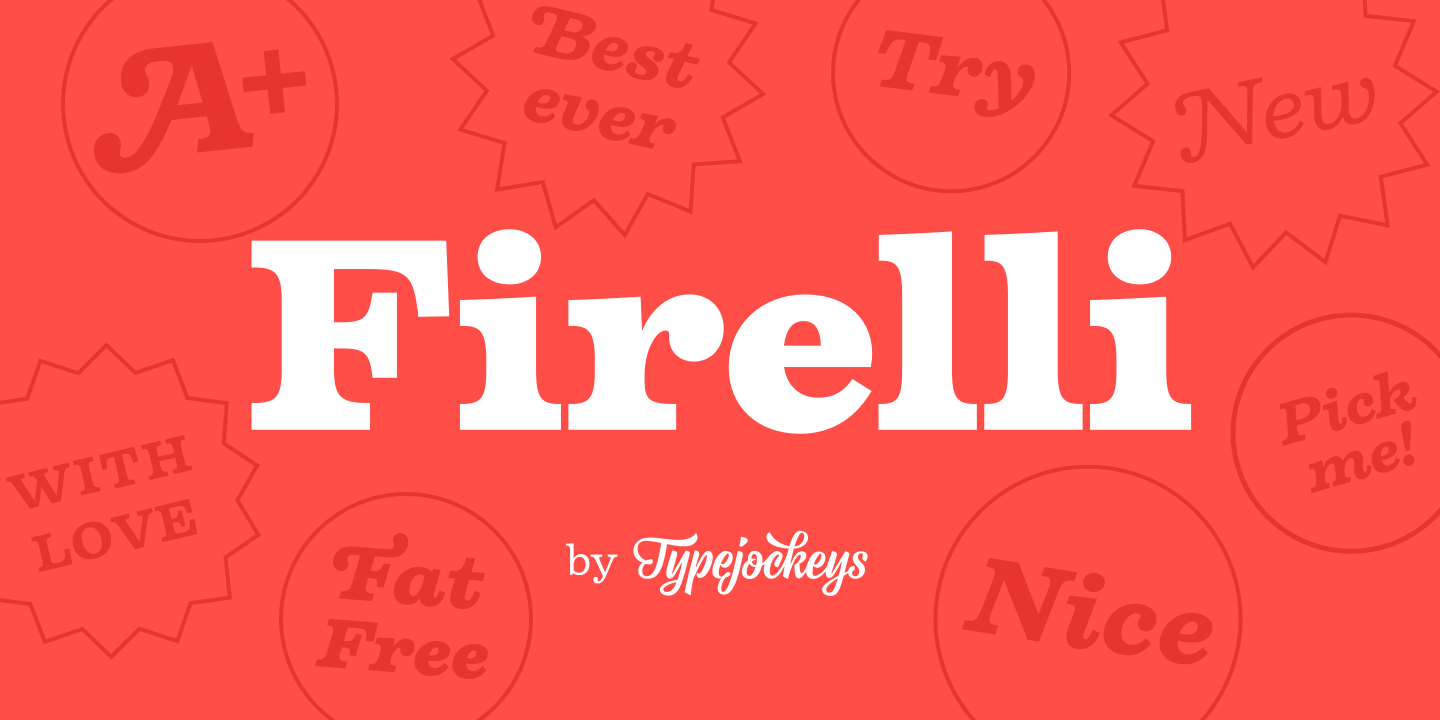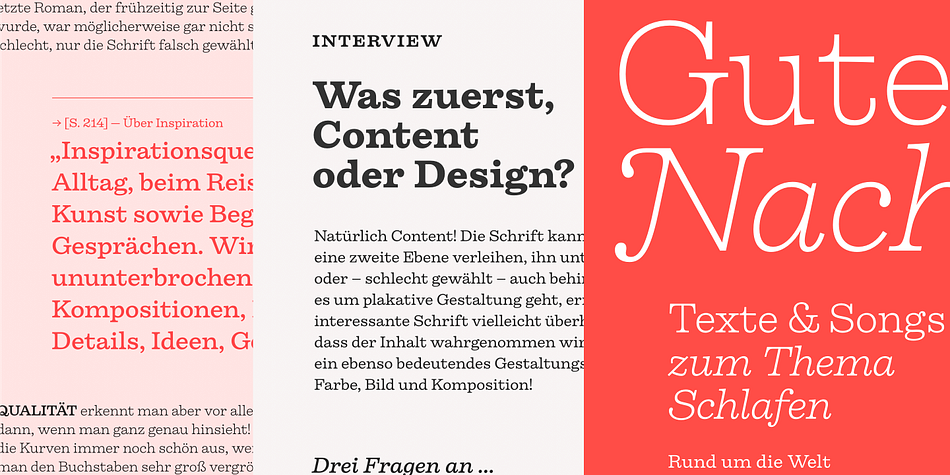
Firelli
Designed by Teddy Derkert, Firelli is a retro and serif font family. This typeface has fourteen styles and was published by Typejockeys.
Firelli is an original family of 14 styles including 7 weights and Italics, designed by the talented Teddy Derkert. Delighting from Thin to Black, Italics, and Swash Caps. Big headlines will love Firelli’s incorruptible details. Longer texts will benefit from a wide-ranging family with its solid posture. Go, use everything Firelli has to offer, to design your contentful magazines, powerful annual reports, or even bedtime stories and fairy tales.